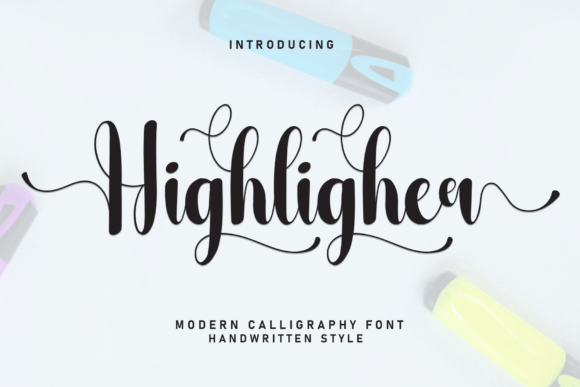
Prepare to be captivated by Highligher Font, an exquisite, hand-drawn script font family designed to add a touch of charm and elegance to your creative projects. Carefully crafted by the talented William Jhordey, Highligher possesses a sweet and friendly persona, exuding a sense of freshness and casualness. Whether you're designing wedding invitations, greeting cards, posters, or any other project that calls for a graceful touch, Highligher is the perfect choice.
Step into a world of creativity and let Highligher's enchanting personality shine through. Its graceful curves and playful ligatures create a delightful visual dance, adding a unique charm to your designs. Experience the joy of effortless expression as Highligher effortlessly enhances your words, making them leap off the page with captivating energy.
With Highligher, you're not just downloading a font; you're embracing a new level of artistry. Its meticulously crafted characters embody a sense of heartfelt warmth and authenticity, inviting your audience to connect with your message on a deeper level. Let Highligher be your creative partner, guiding you towards captivating designs that leave a lasting impression.